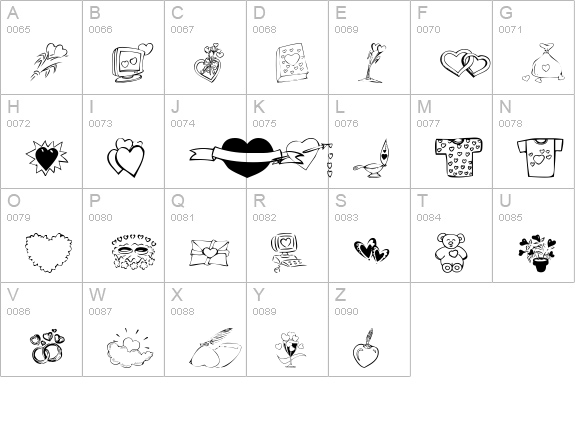
KR Valentines 2006 Ten Font Details
KR Valentines 2006 Ten font is a charming and whimsical typeface perfect for adding a touch of love to your designs. Its delicate and intricate details make it ideal for Valentine's Day projects, wedding invitations, and romantic cards. This font exudes a sense of warmth and affection, making it a lovely choice for expressing heartfelt sentiments. Best of all, KR Valentines 2006 Ten font is available for free download at FontsMarket.com. Embrace the spirit of love and celebration with this beautiful and versatile font that is sure to add a touch of sweetness to any project. Download it today and spread the love with every letter you write!